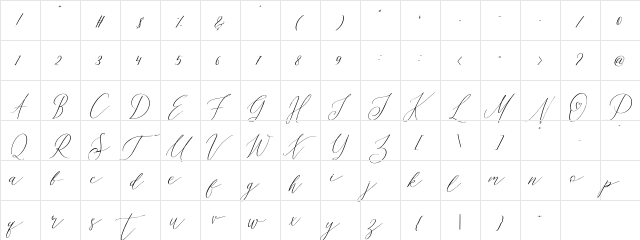
Oh Samantha Regular
| Foundry | Konstantine Studio |
| Designer | Konstantine Studio |
Design Context for Oh Samantha Typeface
Oh Samantha is a composed and adaptable typeface that performs quietly and consistently across a wide range of design contexts.